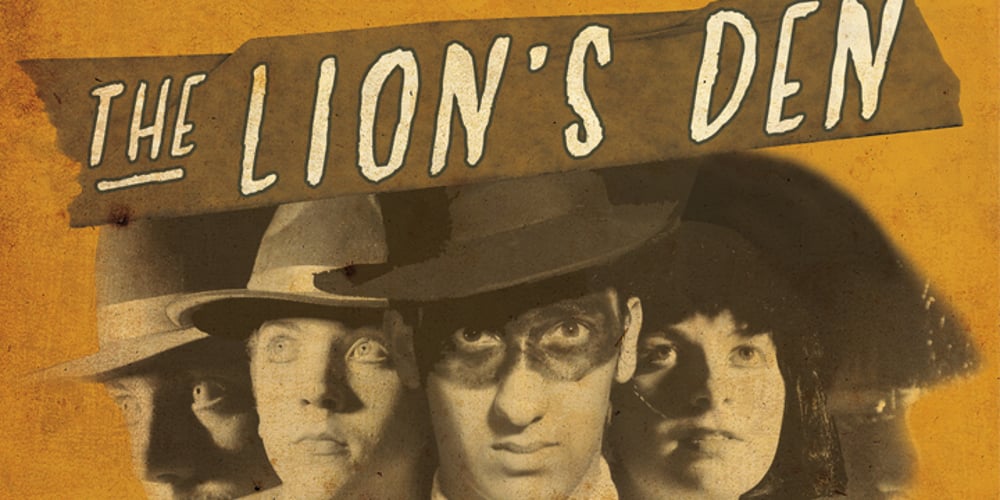
Lions Den
Lions Den font
Lions Den Font Family was designed by Jesse Andrew Tilley and published by Jesse Tilley. Lions Den contains 1 styles and family package options. A font inspired by 40s movie posters. Enjoy!